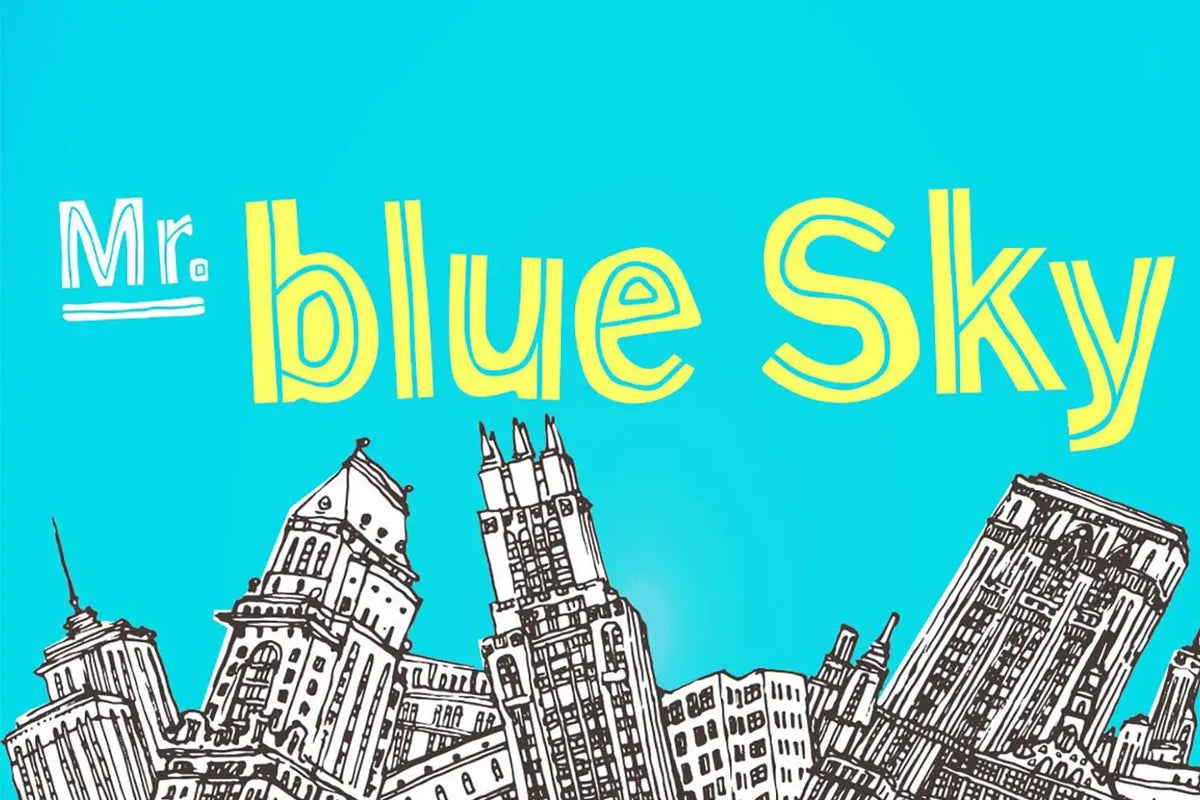
Mr Blue Sky is a bold, handmade Gothic sans-serif display font inspired partly by a bag of popcorn. The font also came from wanting to escape the brush-lettering ideas I naturally gravitate towards.
Mr Blue Sky still looks handmade, but there isn’t a brushmark in sight. It’s bold, bubbly and slightly odd—which is normally where the interesting ideas live.
It started with a bag of popcorn
I can’t remember the brand, the flavour or whether the popcorn was any good. It must have been okay cus I ate it.
What caught my attention was the lettering on the packet.
A thin line ran through the middle of the characters, cutting across the fat outlines and dividing each letter into two sections.
It was a small detail, but it changed the whole thing. Suddenly the typeface looked cooler and had loads more personality.
I liked it. Quite a lot, actually
The letters were still big and bold, but the line stopped them from looking like ordinary chunky display type.
I made a mental note of it, which is my highly organised system for storing ideas.
That simple graphic device—a wobbly line running through the letters—became my starting point for Mr Blue Sky. You can see Mr Blue Sky in the image below.
Getting away from brush fonts
The other motivation was more practical: I wanted to make something that wasn’t another brush font.
I naturally gravitate towards painted lettering and handmade scripts.
I love making them, but I wanted to push myself in a different direction and see what happened.
Drawing every glyph in Procreate
After eating a copious amount of popcorn, I got to work in Procreate.
For this sort of font, Procreate beats pencil and paper. I can redraw, resize and undo without sacrificing a sketchbook or turning my tiny London flat into a police incident room, with sheets of A4 taped to every available surface.
Trust me, I’ve done it that way before.
You start with one letter on the wall and suddenly it looks like you’re trying to solve a murder.
Speed matters at this stage. I don’t want to spend so long perfecting one drawing that I become afraid to change it. I want to try several versions, compare them and keep going until the character feels right.
Cleaning the artwork
Once the drawings were taking shape, I moved them into Adobe Illustrator.
I needed to trace the Procreate drawings and turn them into vectors.
Illustrator can do this. Technically. In much the same way that a spoon can dig a hole.
I’ve made my own presets to make the job easier, but it’s still a total pain in the arse.
These days, AI would probably do a better job. Back then, it hadn’t arrived to steal the work, drink the coffee and take all the credit.
Anyway, before I wander completely off the point, Illustrator was where I refined the outlines, corrected awkward shapes and made the placement of the characters more consistent.
The letters still needed to feel handmade, but they also needed to work as vector type shapes.
Illustrator offers plenty of creative freedom, particularly for experimental and illustrative lettering.
Its weakness is precision.
When I need to finesse curves or judge how one glyph works beside another, dedicated font-design software gives me much better control.
I’m not grumbling too much. Illustrator and Glyphs both have their strengths; they simply solve different parts of the problem.
Why I now draw directly in Glyphs
These days, I normally move an idea from Procreate straight into Glyphs.
Glyphs lets me draw and refine the outlines while checking spacing, alignment and character relationships inside the actual font.
Its drawing tools also give me more control over curves than Illustrator.
Illustrator still wins when I want complete visual freedom. Glyphs wins when those ideas need spacing, precision and finesse.
Every font teaches you something about the next one—usually after you’ve discovered a needlessly complicated way of doing it first.
Turning the drawings into a working font
Drawing an alphabet is only part of making a typeface.
The characters then need spacing, kerning and testing across real words.
This is where the cheerful drawing stage becomes a long series of tiny decisions.
Make coffee.
Move something by two units.
Decide it was better before.
It isn’t glamorous, but it’s what turns a collection of drawings into a font people can actually use.
What makes Mr Blue Sky
The line running through the characters is the detail that gives Mr Blue Sky its identity.
It cuts through the weight of the letters, breaks up the heavy shapes and gives the typeface a slightly constructed appearance.
Without it, Mr Blue Sky would still be bold, but it would lose the idea that makes it recognisable.
What kind of design suits Mr Blue Sky?
Mr Blue Sky suits brands that want to feel bold, cheerful and approachable without looking overly polished.